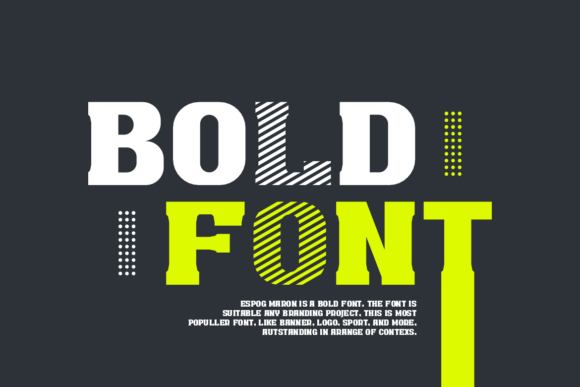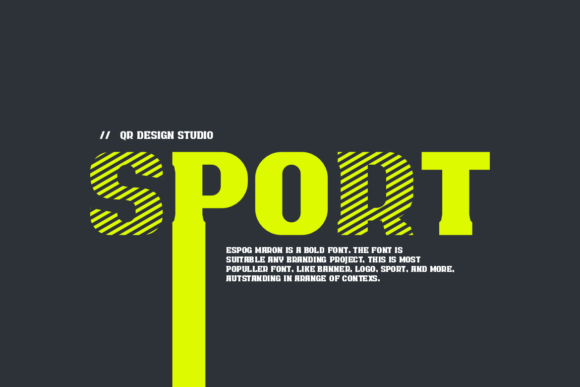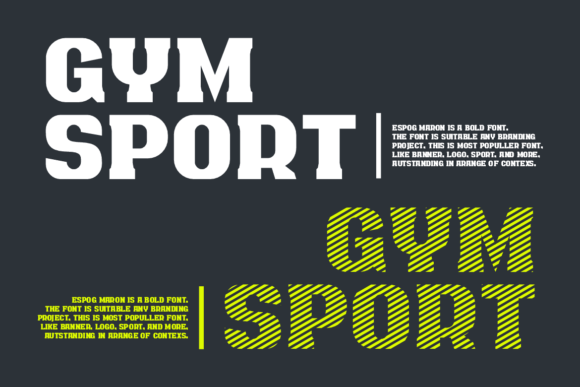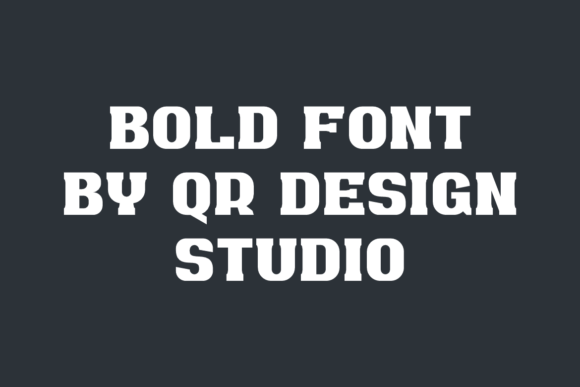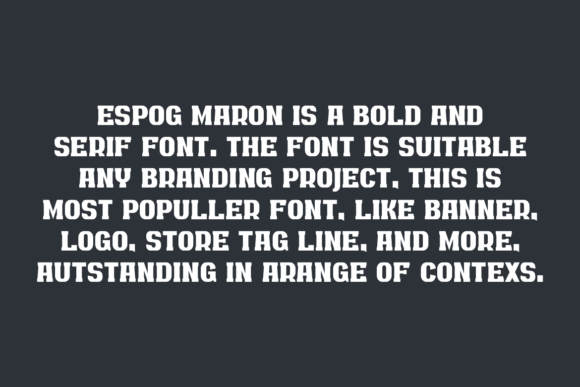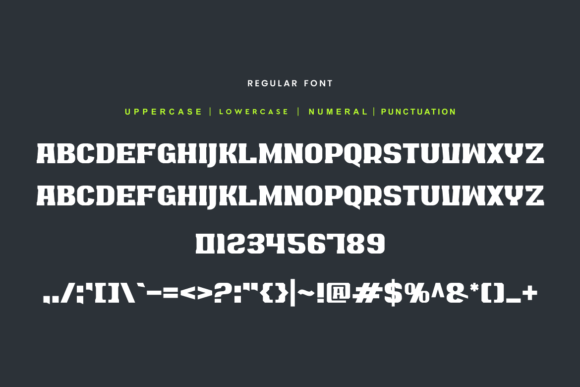
Introduction to Espog Maron Font
Gaming – Sports Font is a bold and authentic display font.
The font is suitable for any branding project like posters, logos, sports, and many more Outstanding in a wide range of contexts.
Key Features of Espog Maron Font
Why Choose Espog Maron Font?